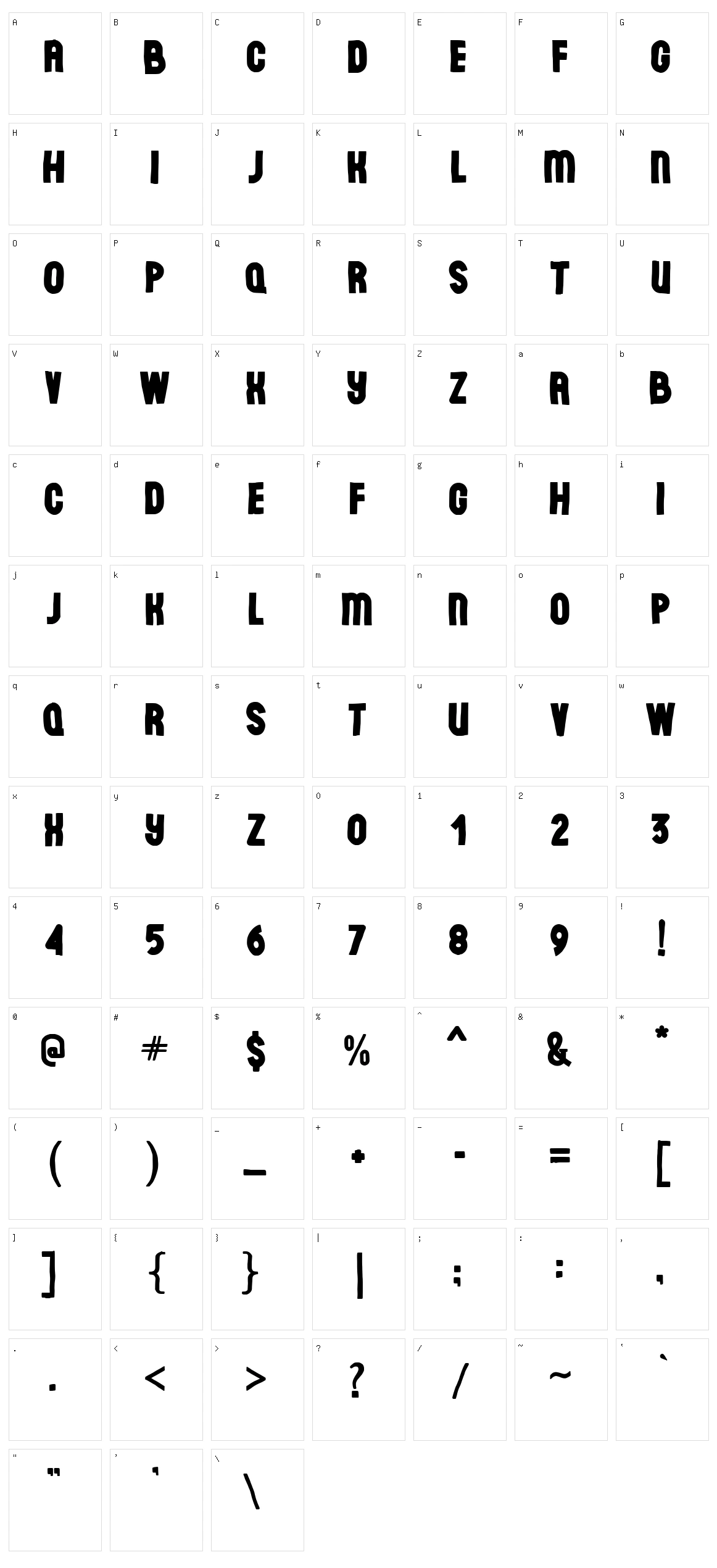
The free font Dave Gridder is carefully designed by Kurnia Setyadi, showcasing a thoughtful balance of creativity and usability and falls under the Distorted font style. When you download the ZIP file, it contains only 65 KB of font files, making it lightweight and quick to download. Please review the license details below to understand permitted usage and distribution rights. If license information is not available, we recommend using this font for personal projects only or contacting the author directly for commercial usage permissions.